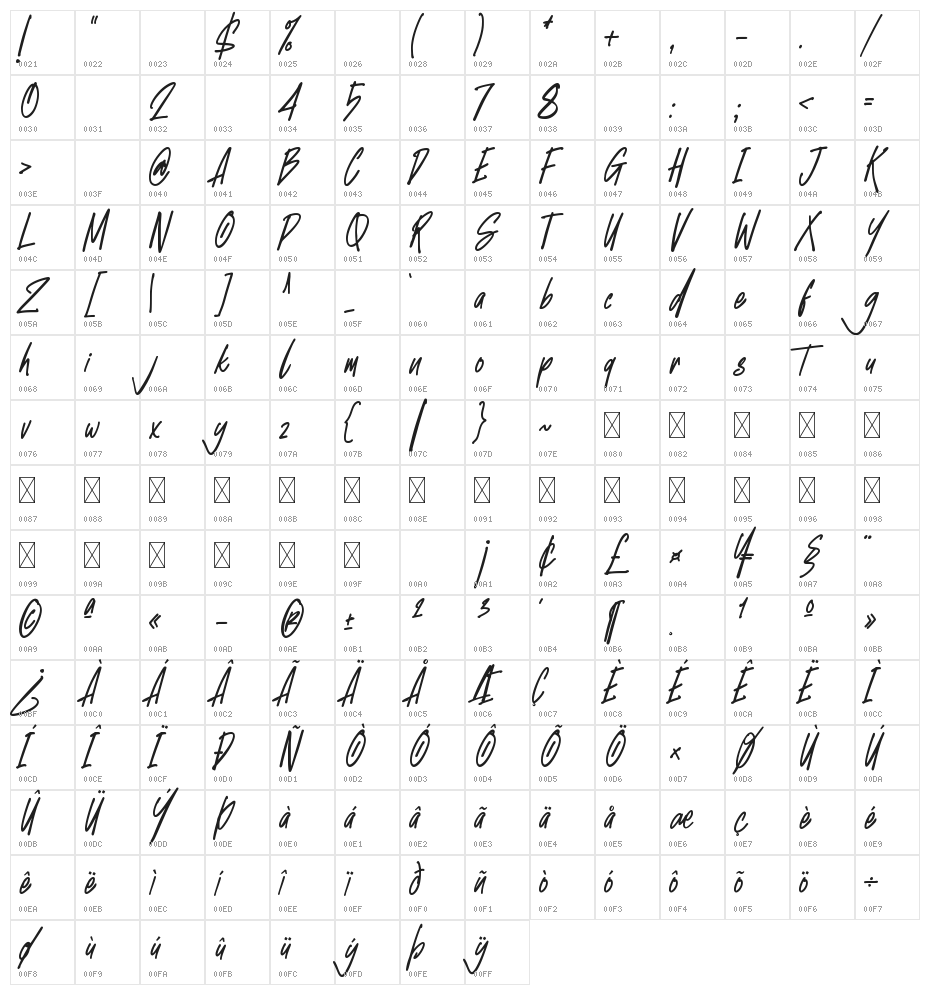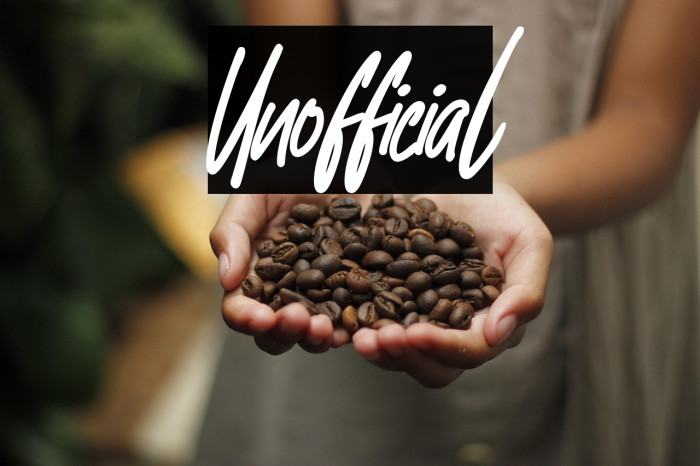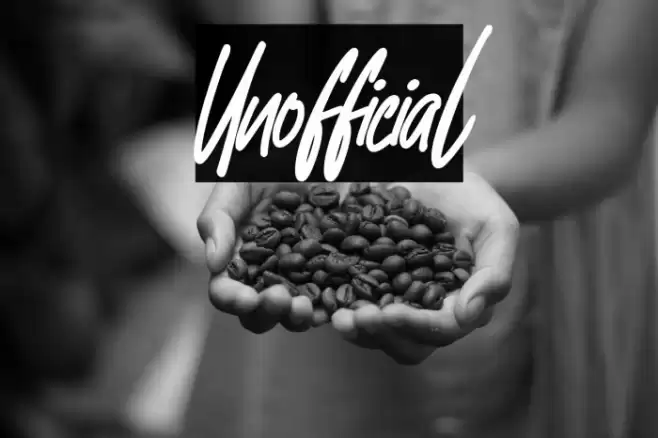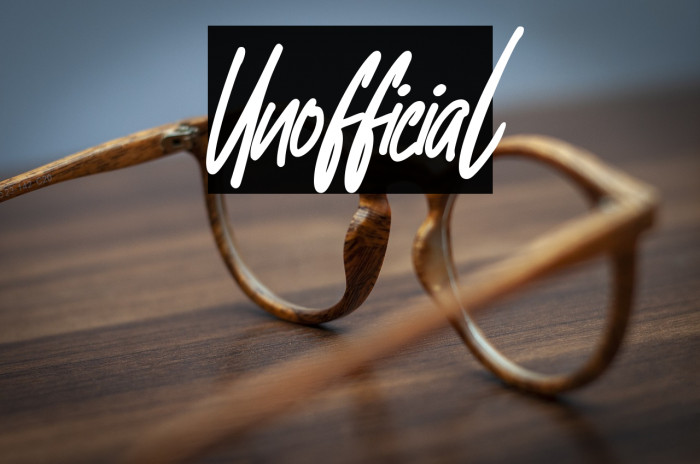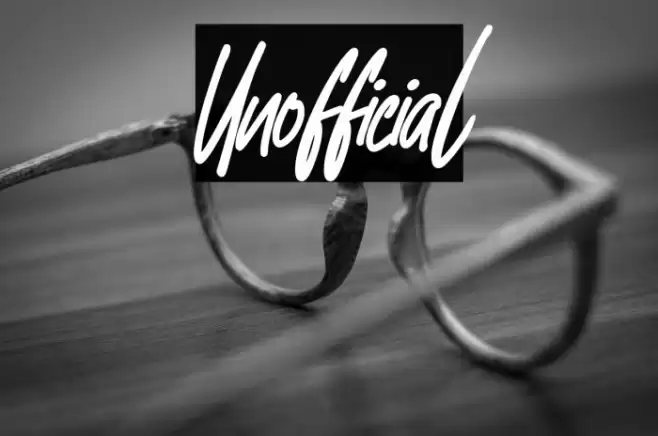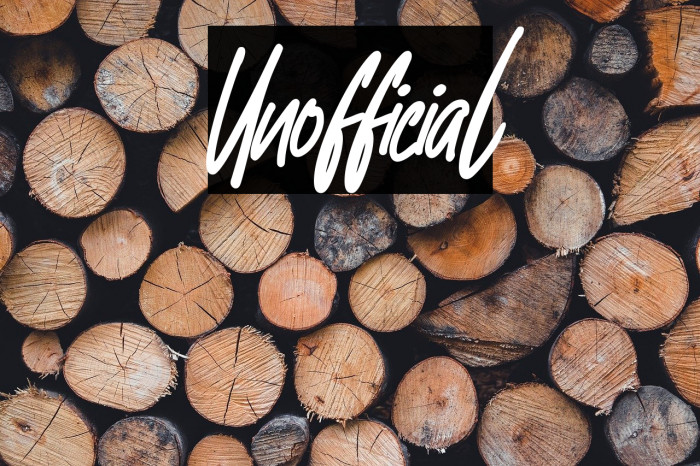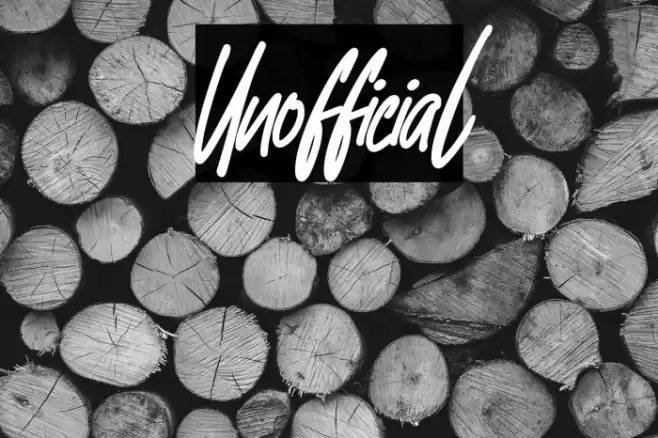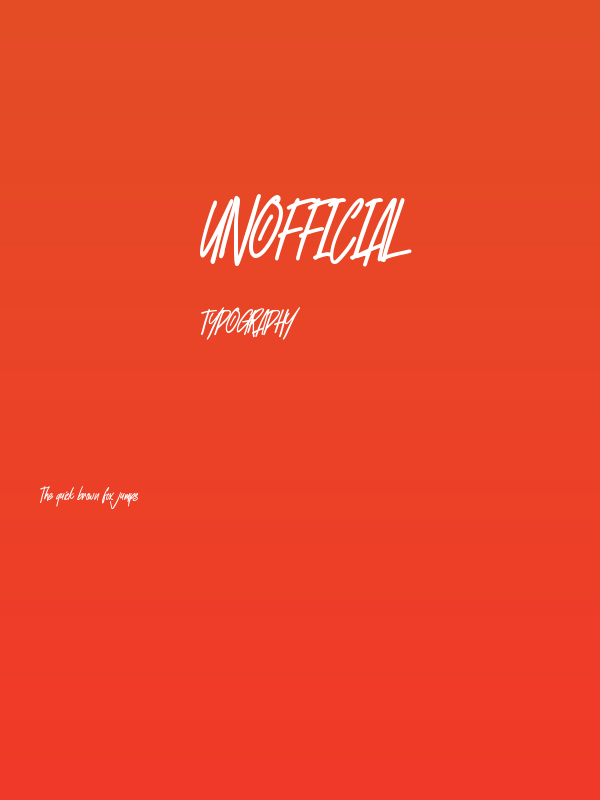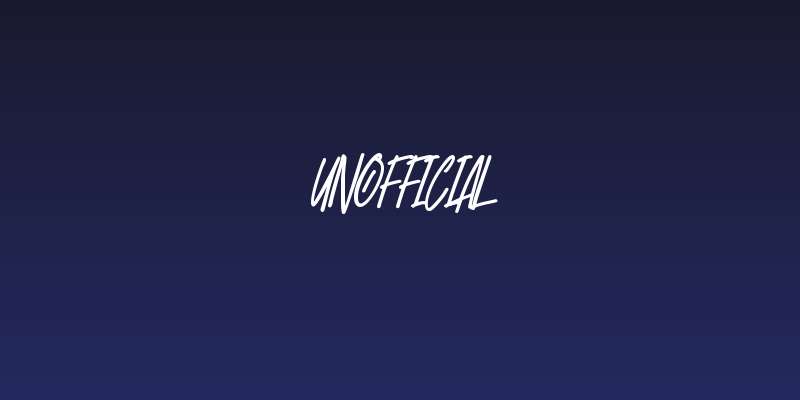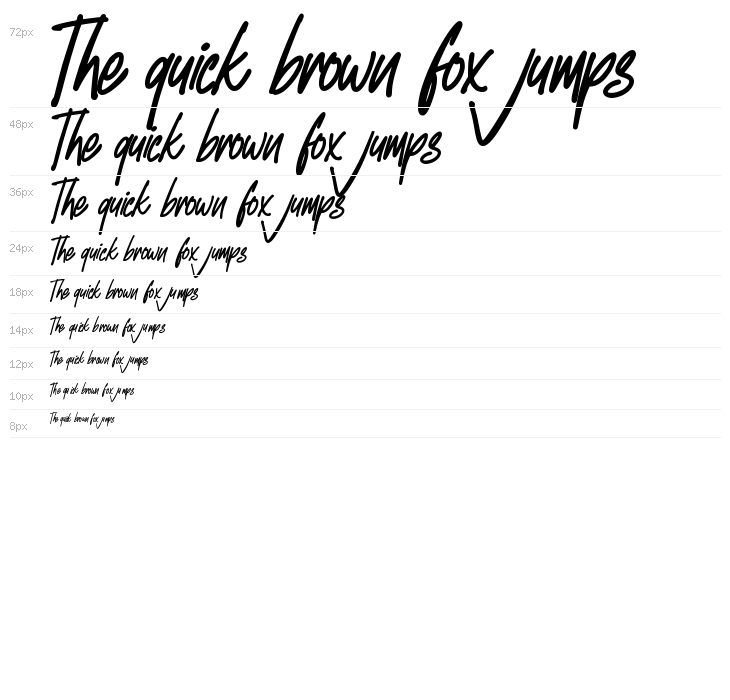
Unofficial Font
Unofficial Description
This font exudes a dynamic and energetic feel with its bold, handwritten style. The letters are slanted, giving a sense of motion and urgency, while the strokes are thick and expressive, showcasing a raw, artistic flair. The uppercase and lowercase letters maintain a consistent style, with elongated forms and a slightly condensed appearance. Numbers and special characters follow the same expressive design, ensuring a cohesive look across all elements. The font's overall aesthetic is modern and edgy, making it suitable for projects that require a personal touch or a statement-making design.
| Proposed Projects | Ideal for branding, posters, album covers, and any project needing a bold, personal touch. |